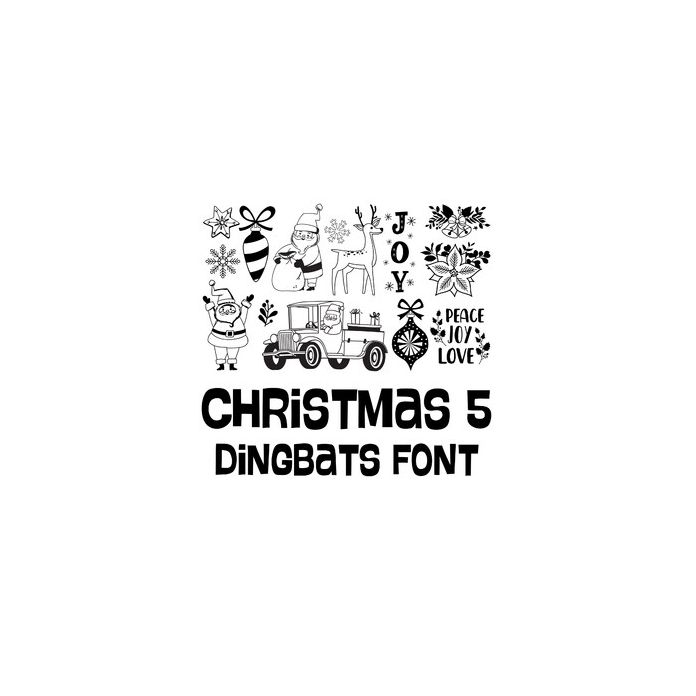
This dingbats font contains 26 darling Christmas icons that can be used for all sorts of Christmas projects. Be sure to visit the Lori Whitlock YouTube channel to watch her "How to Use Dingbats Font".